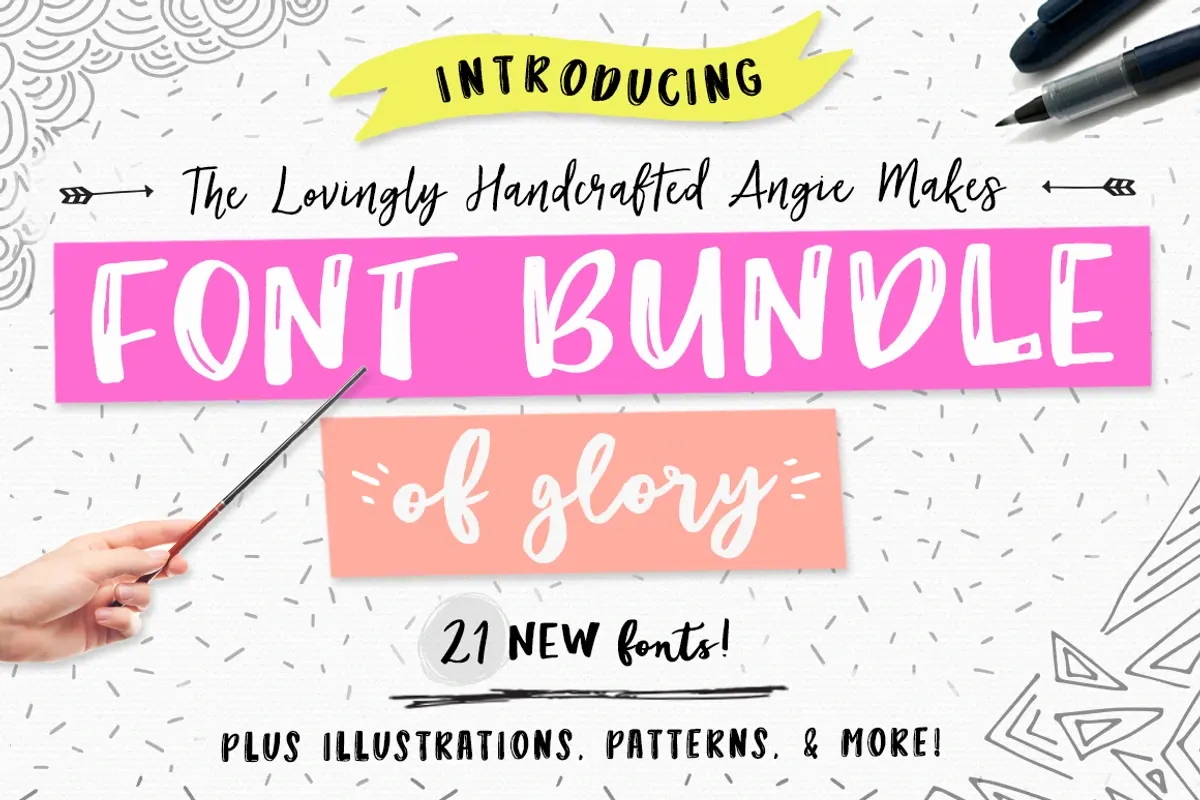
Angie Makes Font Bundle of Glory Free Download is a beautifully curated collection of handcrafted fonts bursting with charm, elegance, and creative flair. Featuring a mix of whimsical scripts, modern calligraphy, and playful display fonts, this bundle is perfect for wedding invitations, feminine branding, blog headers, stationery, and social media graphics.
Angie Makes Font Bundle of Glory Free Download gives you a versatile toolkit for all things stylish and romantic. Whether you're designing a logo for a boutique, creating heartfelt printables, or dressing up your Instagram feed, these fonts deliver personality and polish in every letter. Download it now and let your creativity bloom with this glorious bundle!